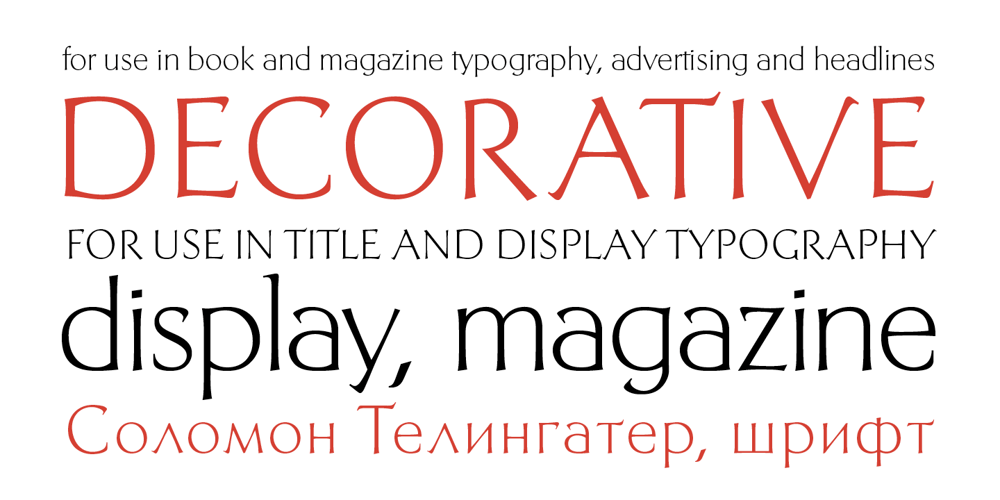
Telingater Display Font Family was designed by Lyubov Kuznetsova and published by ParaType. Telingater Display contains 1 styles and family package options. PT Telingater Display™ was designed in 1959 by a well-known Soviet book designer Solomon Telingater (1903-1969) at Polygraphmash type design bureau. The typeface was awarded the Silver Medal at the International Book Art Exhibition (IBA-59) at Leipzig (Germany) in 1959. Light flared sans serif with calligraphic flavor and low contrast between main strokes and hairlines. For use in title and display typography. The digital version was developed for ParaType in 2001 by Lyubov Kuznetsova.